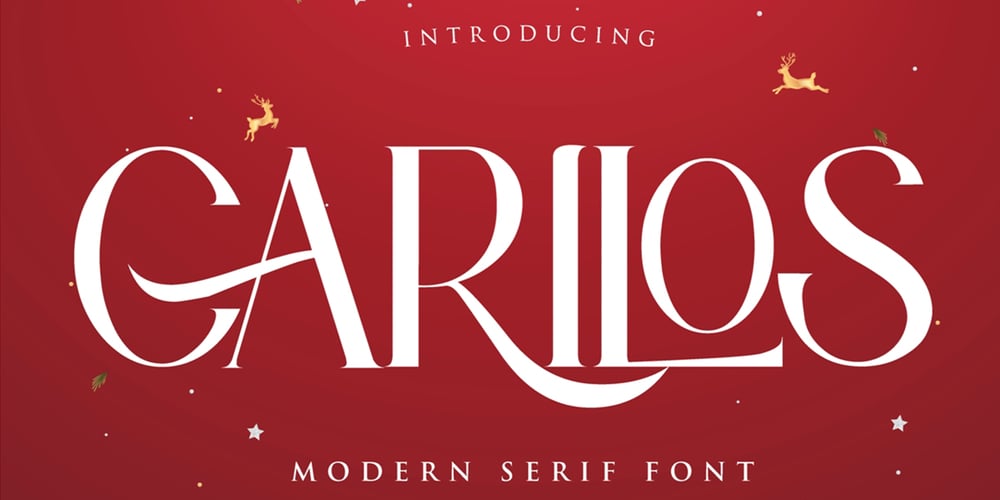
Carilos Font Family was designed by Gumilar Pratama Adiatna and published by Gilar Studio. Carilos contains 1 styles and family package options. Carilos is a curly and fun serif font. This collection of scripts is perfect for gift products like a shirts or greeting cards. Also suitable for wedding invitations, branding, stationery, blog design, custom art, custom stamps, custom embossers, or any design purpose.For those of you who are needing a touch of elegant, stylish, classy, chic and modernity for your designs, this font was created for you!Carilos is with beautiful ligatures, special alternative glyphs and multilingual support. It’s a very versatile font that works great in large and small sizes. This pack include are some interesting ligature and alternate options.Feature :Number And PunctuationMulti-languageAlternatesPUA EncodedBeautiful 60+ LigaturesMix and Match lowercases & uppercases. Let’s play!Check my other Font here : https://gilarstudio.com/